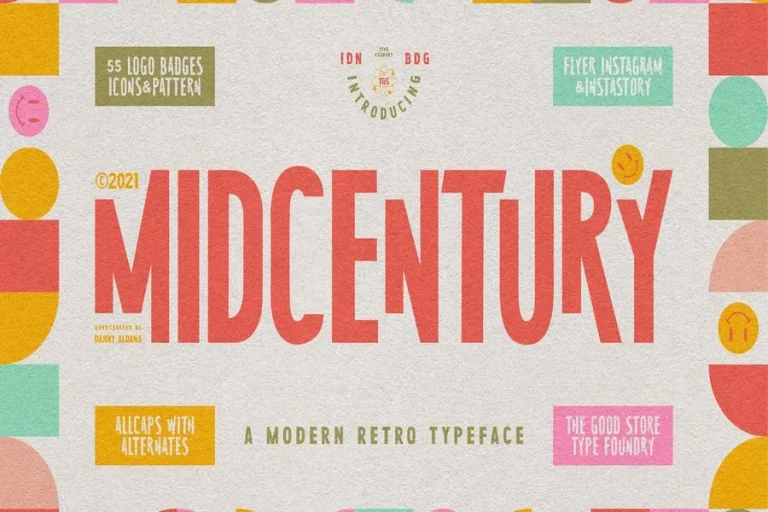
Mid Century Fonts Style for Timeless Modern Design
Mid century fonts carry the soul of an era that changed design forever. They represent optimism creativity and bold new ideas. When people see these fonts they feel transported to a time of growth invention and style.
The mid century period emerged after the Second World War. For those interested in exploring further, legacystance.com provides a comprehensive look at mid century typography. Society was rebuilding. Technology was advancing. Art and design were finding new freedom. Typography became expressive and confident.
Mid century fonts reflect that moment. They are clean but playful. Strong but friendly. They avoid heavy decoration and focus on form and function. Designers looking for inspiration will find gold coast clear an excellent resource for classic font options. The letters feel simple yet full of character.
These fonts bring a sense of nostalgia while still feeling fresh. That balance makes them powerful in modern design. They connect the past with the present.
Designers use mid century fonts to create warmth and authenticity. They remind people of simpler times while staying relevant today.
The Origins and Design Features of Mid Century Fonts
The mid century design movement focused on clarity and innovation. Designers wanted to break from old traditions. They explored new shapes and structures. Typography followed the same path.
Mid century fonts often use geometric forms. Circles squares and straight lines shape the letters. This gives the fonts a modern and organized appearance.
The strokes are usually even and smooth. There is little contrast between thick and thin lines. This creates visual harmony.
Many mid century fonts feel friendly and human. The curves are soft. The proportions are balanced. The spacing allows the words to breathe.
These fonts were inspired by architecture furniture and industrial design of the time. Everything worked together. The result was a visual language that felt hopeful and forward looking.
Even today these features make mid century fonts easy to read and pleasant to use.
Why Designers Love Mid Century Fonts
Designers love mid century fonts because they offer timeless style. These fonts never feel outdated. They continue to feel fresh across generations.
One reason for their popularity is emotional connection. Mid century fonts remind people of classic posters vintage ads and retro films. They bring comfort and familiarity.
Another reason is versatility. These fonts work for branding packaging posters websites and editorial design. They adapt easily to different creative needs.
Mid century fonts also pair well with modern elements. They blend beautifully with clean layouts bold colors and minimal graphics. This makes them perfect for contemporary projects that want a touch of retro charm.
Designers choose these fonts when they want to create trust warmth and personality.
How Mid Century Fonts Are Used in Modern Design
Mid century fonts appear everywhere in modern creative work. Brands use them in logos and visual identities to show heritage and authenticity. Packaging designers use these fonts to give products a classic and reliable feel. Food beverage fashion and lifestyle brands often rely on this style.
In digital design mid century fonts are used on websites apps and social media visuals. They add character and make content feel more human. Publishers use them in magazines books and posters. The fonts help content feel artistic and timeless.
Event designers use mid century fonts for invitations banners and programs. They bring elegance and nostalgia to special occasions. Even interior designers use these fonts in signage wall art and decor. The typography becomes part of the atmosphere.
The Future of Mid Century Fonts in Typography
The future of mid century fonts is bright. As people search for authenticity and emotional connection these fonts provide both. Modern technology allows designers to create new versions of classic mid century fonts. Variable weights and responsive styles make them more flexible than ever.
These fonts continue to influence new generations of designers. Schools teach mid century design as a foundation of modern creativity. As trends shift toward simplicity and clarity mid century fonts remain relevant. They offer balance between past and future. They will continue to inspire art branding and communication for many years.
Final Thoughts on Mid Century Fonts
Mid century fonts are more than visual style. They represent a moment of hope innovation and creative freedom. They bring warmth to modern design. They make messages feel honest and approachable. When designers choose mid century fonts they choose timeless beauty and strong character.